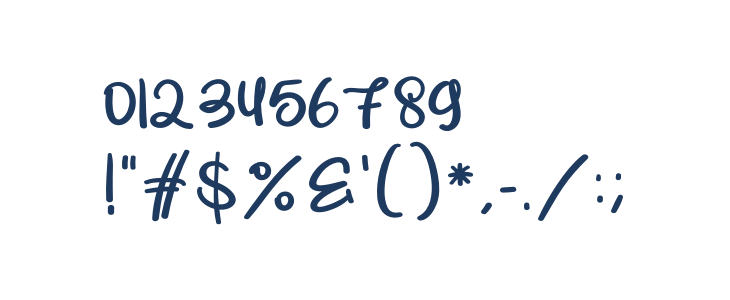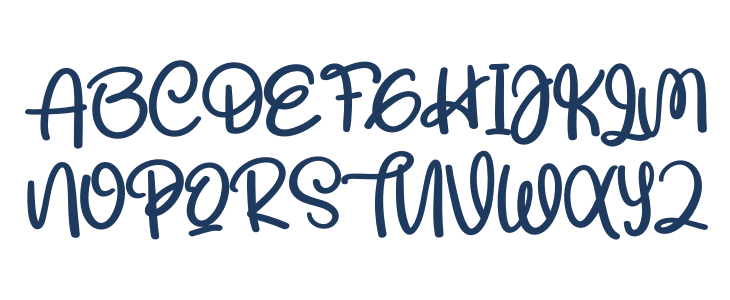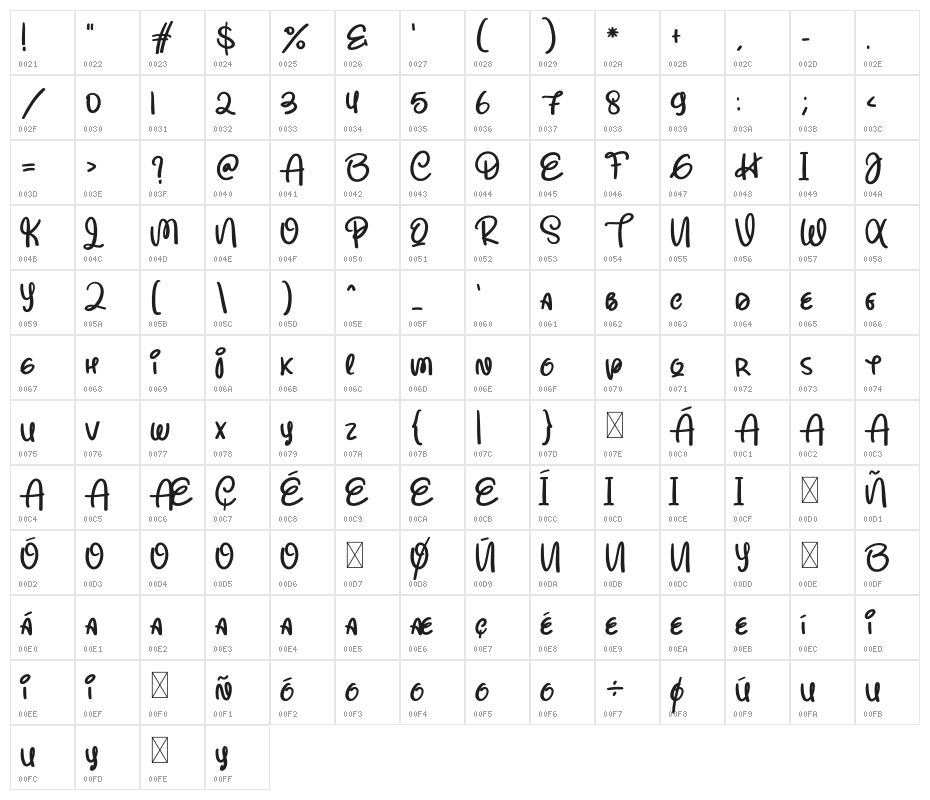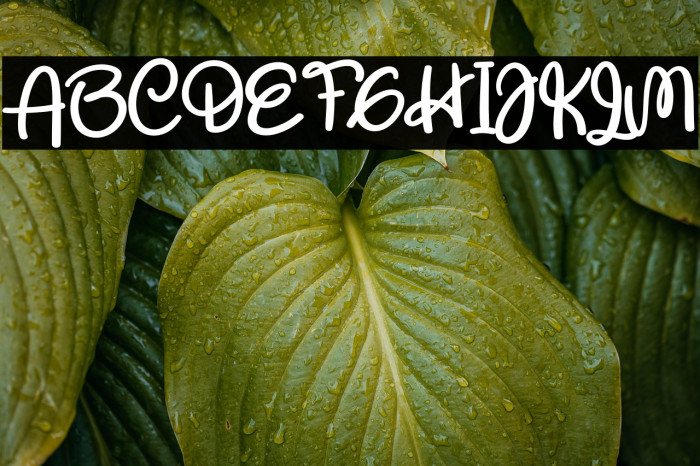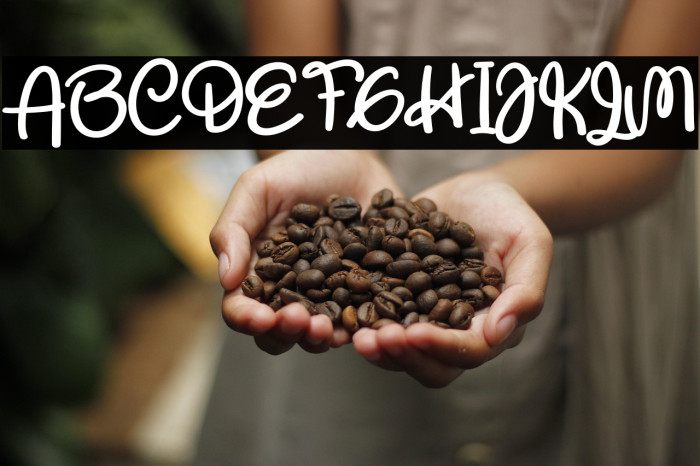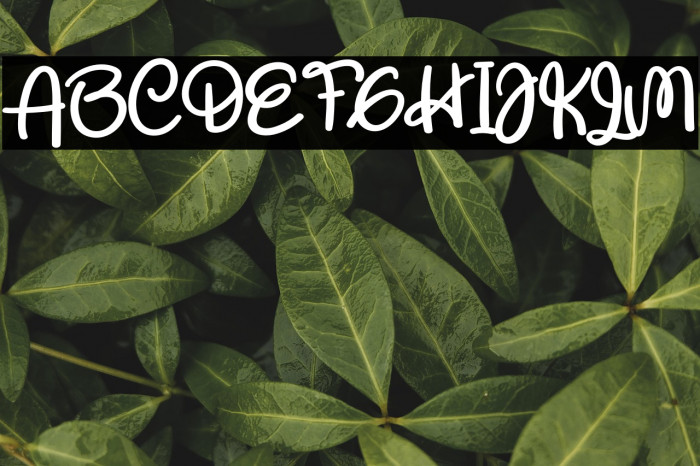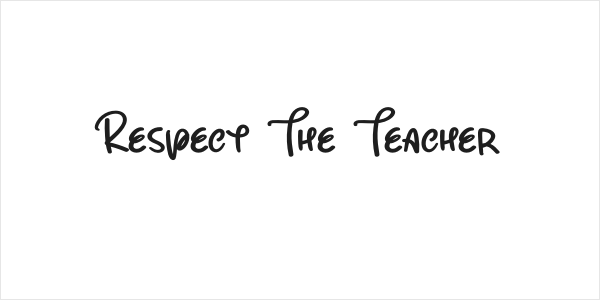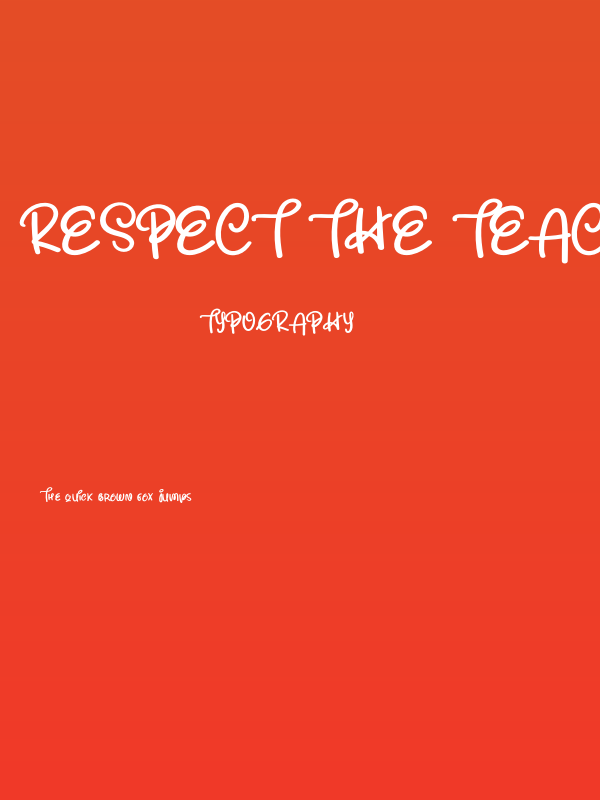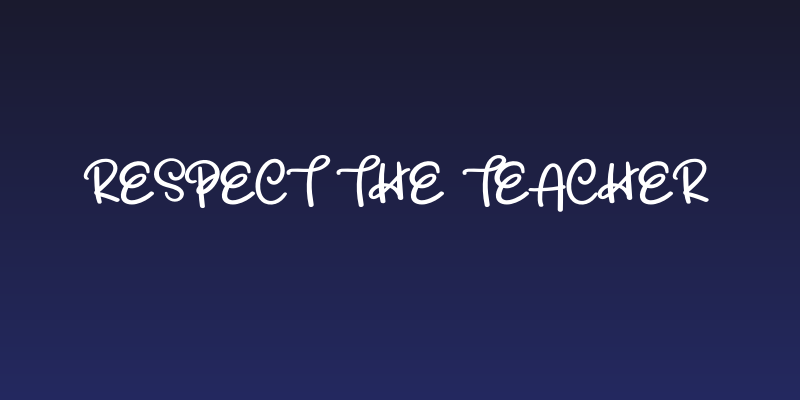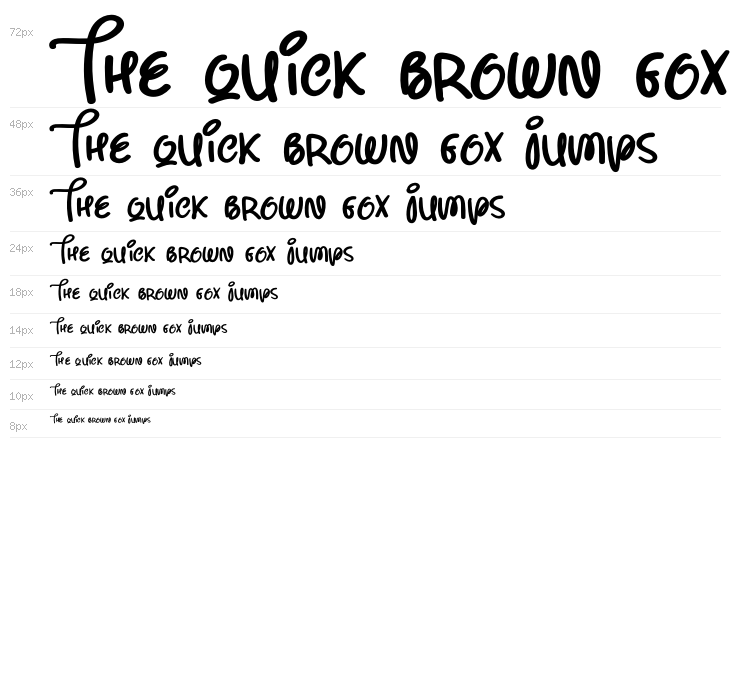
Respect The Teacher Font
Respect The Teacher Description
A playful, handwritten font with rounded, looping strokes and consistent thickness, giving it a casual and friendly appearance. The characters are slightly condensed with a lively, informal style, and the numerals and symbols match the whimsical tone.
| Overall Style | Playful, Informal, Friendly |
| Use Case | Headlines, Posters, Greeting cards, Educational materials |
| Proposed Projects | Children's books, greeting cards, posters, educational materials, informal branding. |